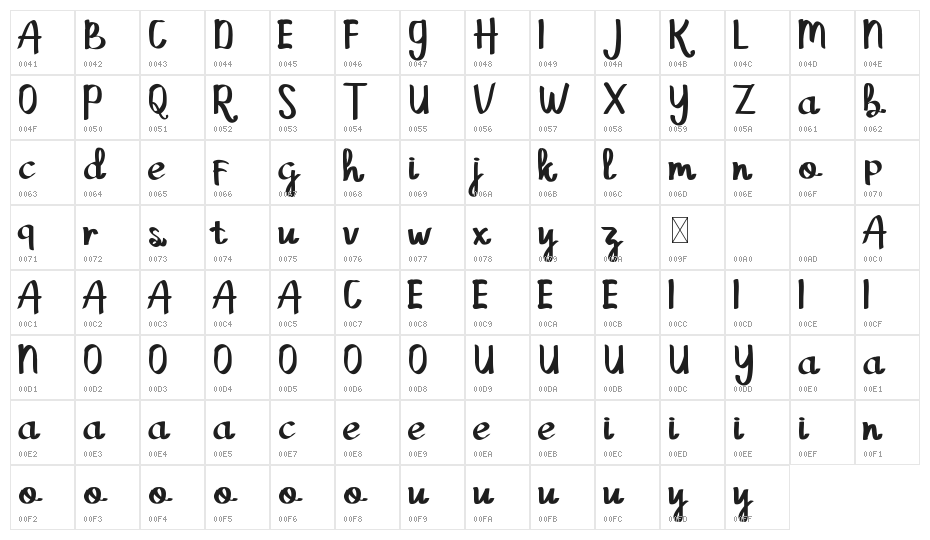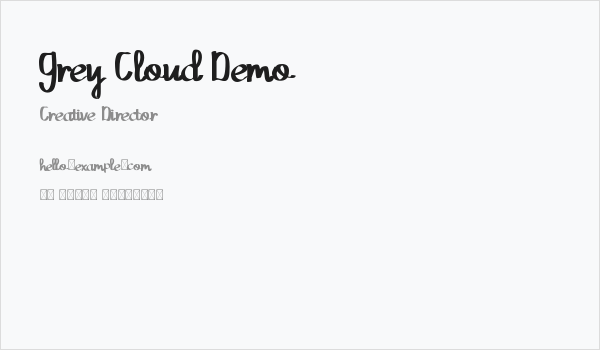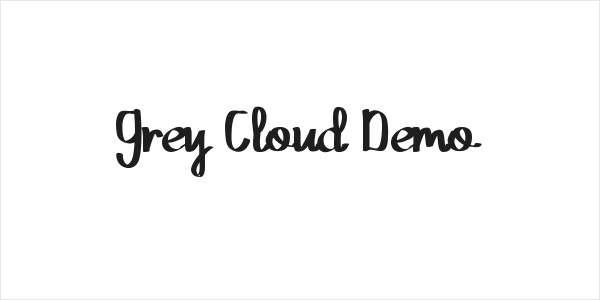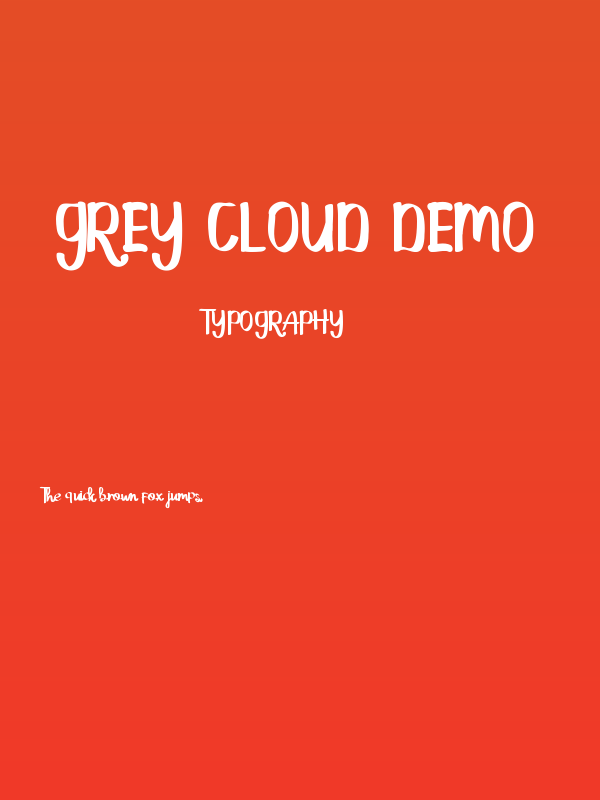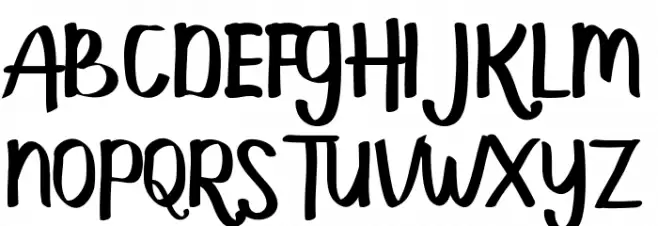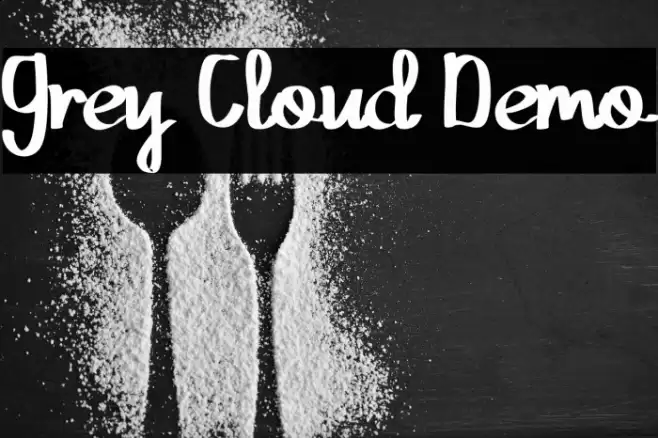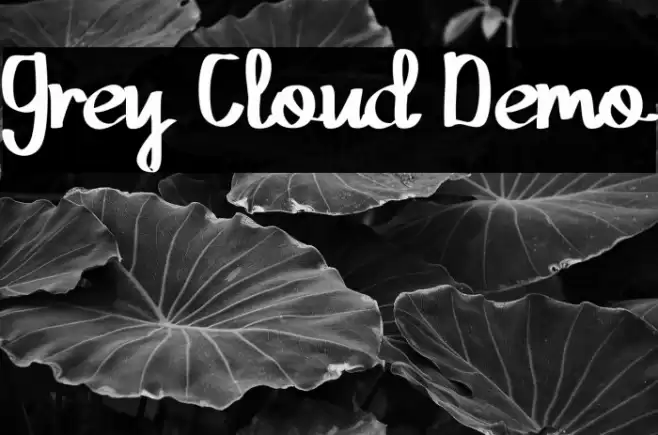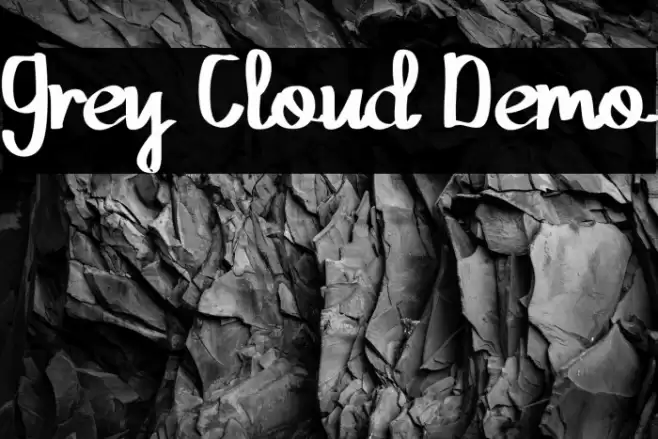
Grey Cloud Demo Font
This font features a playful and bold handwritten style with a casual and friendly appearance. The letters are characterized by their thick strokes and smooth curves, giving them a lively and dynamic feel. The uppercase and lowercase letters maintain a consistent style, with a slight slant that adds to the informal and approachable nature of the font. The spacing between characters is relatively tight, which enhances the cohesive look of the text. This font is well-suited for projects that require a personal touch, such as invitations, greeting cards, or branding for creative businesses.
| Proposed Projects | Ideal for invitations, greeting cards, creative branding, and personal projects. |